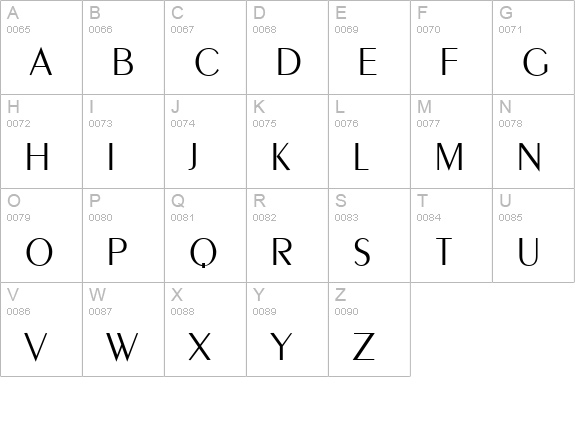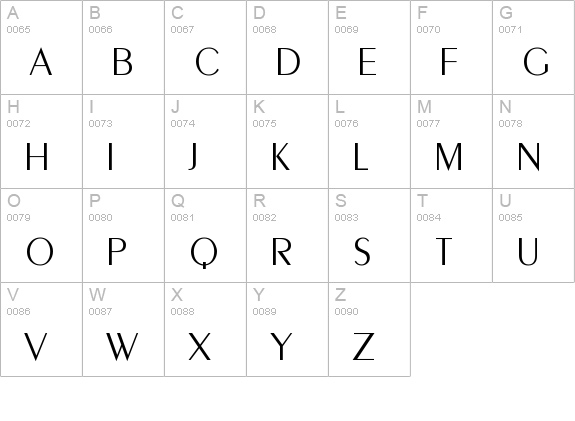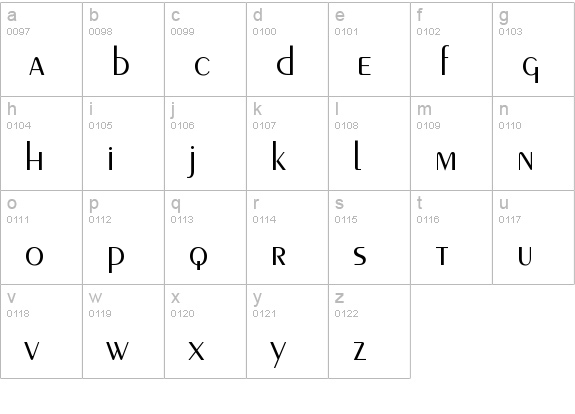
QTPeignoir-Lite Regular Font Details
QTPeignoir-Lite Regular is the standard, neutral variant in the QTPeignoir typeface family \xE2\x80\x94 well suited to general body text, paragraphs, and standard typographic work.
QTPeignoir-Lite Regular font is an elegant and sophisticated typeface that effortlessly combines modernity with timeless appeal. Its sleek and slender letterforms exude grace and poise, making it the perfect choice for projects that require a touch of sophistication. This font is perfect for a wide range of design applications, from branding and logo design to editorial layouts and packaging. Its clean lines and balanced proportions make it highly legible in both large and small sizes, ensuring that your message is clear and visually impactful. One of the standout features of QTPeignoir-Lite Regular font is its versatility. It can seamlessly adapt to various design aesthetics, from minimalistic and contemporary to classic and traditional. This adaptability makes it a go-to choice for designers seeking a font that can effortlessly blend into any project. And the best part? QTPeignoir-Lite Regular font is free! That's right, you can download this exceptional font for absolutely no cost at FontsMarket.com. We believe that good design should be accessible to all, and by offering this font freely, we hope to inspire creativity and enable designers to bring their vision to life without any barriers. So go ahead, download QTPeignoir-Lite Regular font today and unlock a world of possibilities for your design projects. With its timeless elegance and free availability, this font is a must-have for any designer's toolkit. Experience the beauty and versatility of QTPeignoir-Lite Regular font and elevate your designs to new heights.